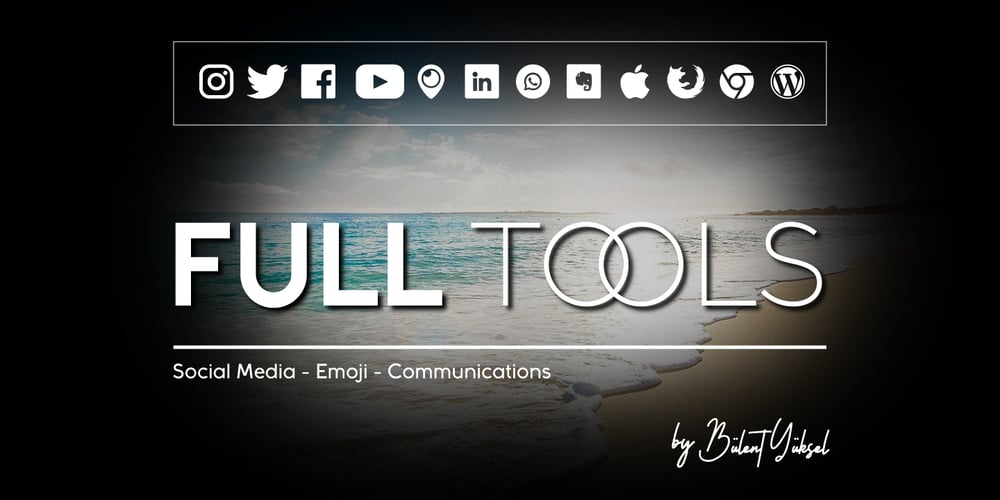
Full Tools Font Family was designed by Bülent Yüksel and published by Bülent Yüksel. Full Tools contains 10 styles and family package options. Full Tolls is the younger brother of original Full Sans, Full Neue and Full Slab. Full Tools started with Social Media Icons. In the following days coming new icons. For example “Full Tools – Communication” and “Full Tools – Emojis” and mode. To take up less space and simplifying icons on the web and phone apps. All icons bigger 110% from another Full Brothers. Full Tools is the perfect font for web use. You can enjoy using it. EMOJI ICONS – Amazed – Angry – Beard – Crying – Dead – Dissapointed – Embarrassed – Evil – Friendly – Happyness – Happy – Hilarious – In-love – Indifferent – Kiss – Laughing – Lovely – Muted – Nerd – Quiet – Sad – Scaret – Smile – Stress – Sunglasses – Suprised – Suspect – Thief – Tongue – Wink SOCIAL MEDIA ICONS – Amazon, – Android, – Apple, – Bechance, – Bing, – Box, – Buffer, – Creative Market, – Crome, – Delicious, – Deviantart, – Dribbble, – Dropbox, – Etsy, – Facebook, – Facebook Like, – Facebook Unlike, – Flckr, – Firefox, – Foursquare, – Google+, – Grafiport, – Hi5, – Howcast, – Html5, – Instagram, – Klikstarter, – Linkedin, – Messenger, – Myspace, – Myfonts, – Opera, – Path, – Paypal, – Periscope, – Pinterest, – Plaxo, – Quora, – Reddit, – Rss, – Shutterstock, – Skype, – Snapchat, – Spotify, – Stumbleupon, – Twitter, – Trello, – Tumblr, – Vimeo, – Vine, – WhatsApp, – Wikipedia, – WordPress, – Yelp, – Youtube You can enjoy using it.